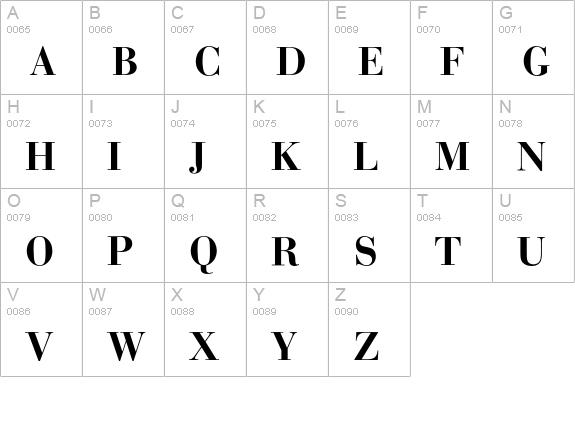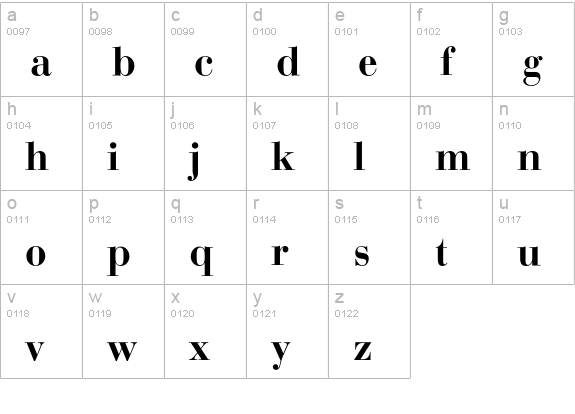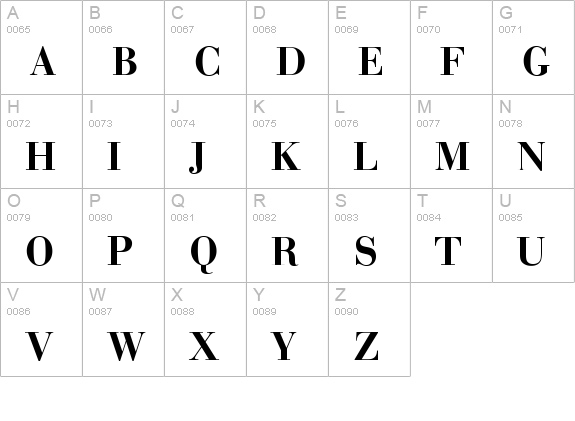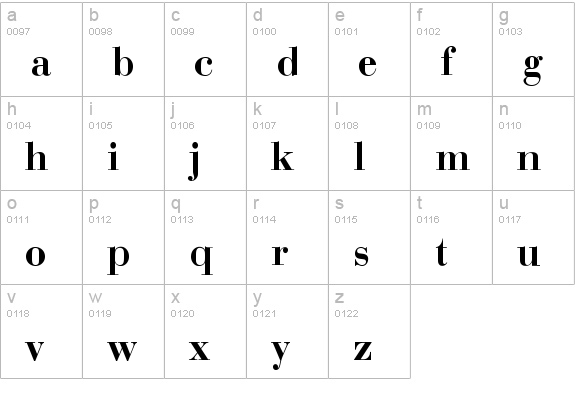
Bauer Bodoni Medium is a balanced, medium-weight variant in the Bauer typeface family \xE2\x80\x94 well suited to sub-headlines, navigation, and balanced editorial work.
Bauer Bodoni Medium font is a timeless and elegant typeface that exudes sophistication and refinement. Its classic design features crisp, sharp serifs and a perfect balance between thick and thin strokes, making it ideal for conveying a sense of luxury and prestige in any design project. The Bauer Bodoni Medium font is versatile and can be used for a wide range of applications, from branding and editorial design to packaging and signage. The best part is that this exquisite font is available for free download at FontsMarket.com. Whether you are a designer looking to elevate your projects or a business owner seeking a touch of class for your branding, Bauer Bodoni Medium font is sure to impress with its effortless beauty and timeless appeal. Download it now and add a touch of sophistication to your next design endeavor.